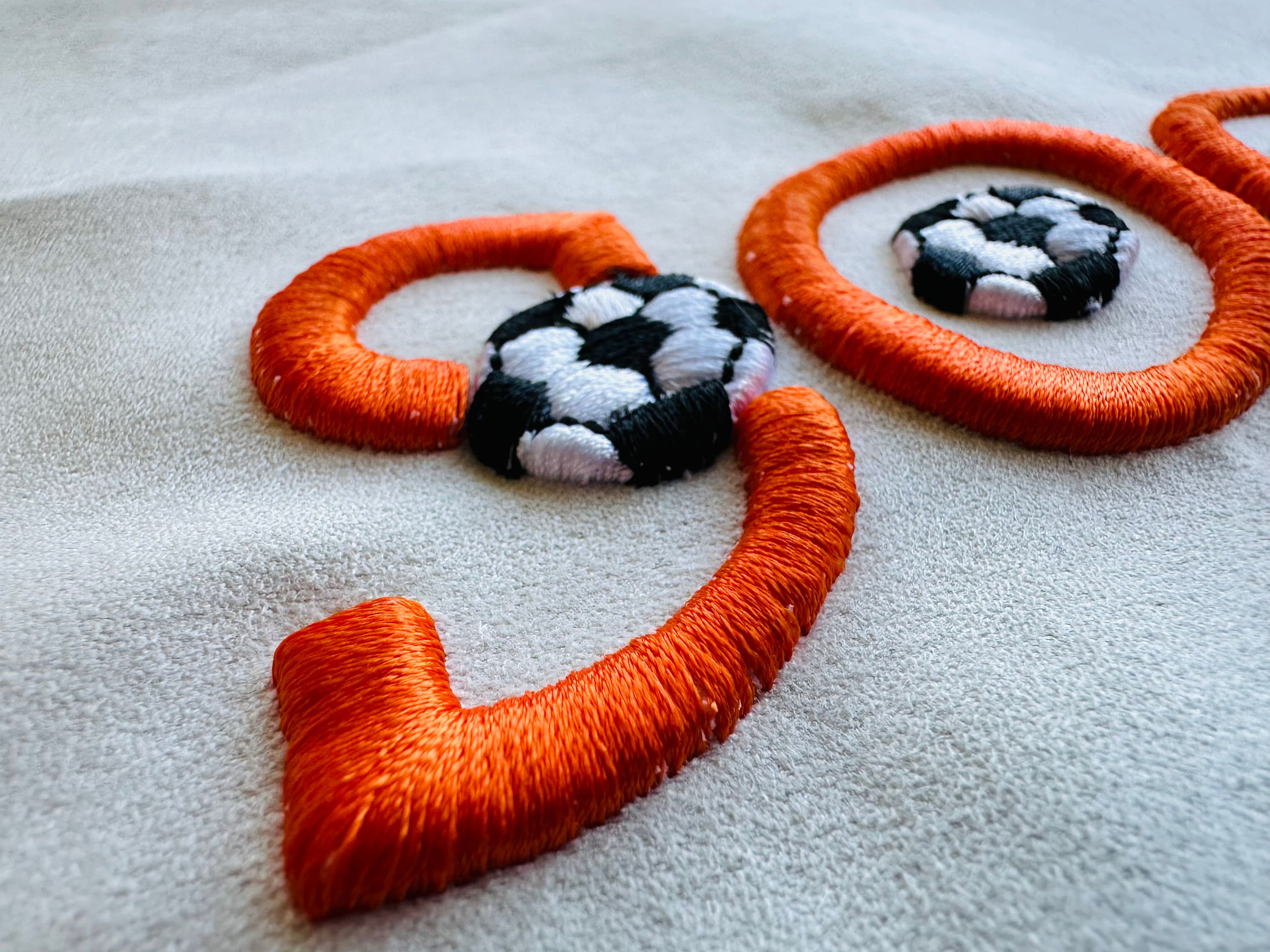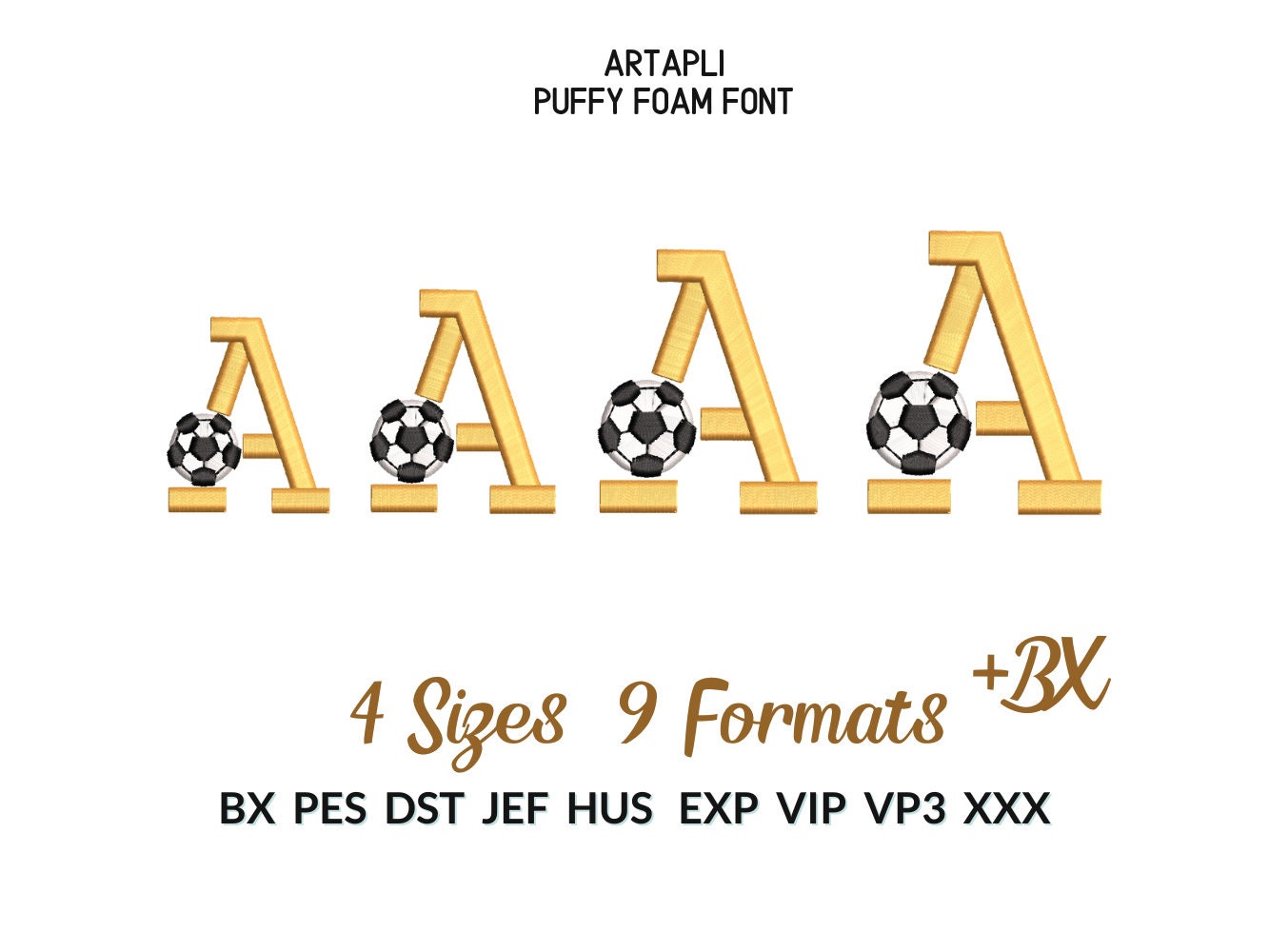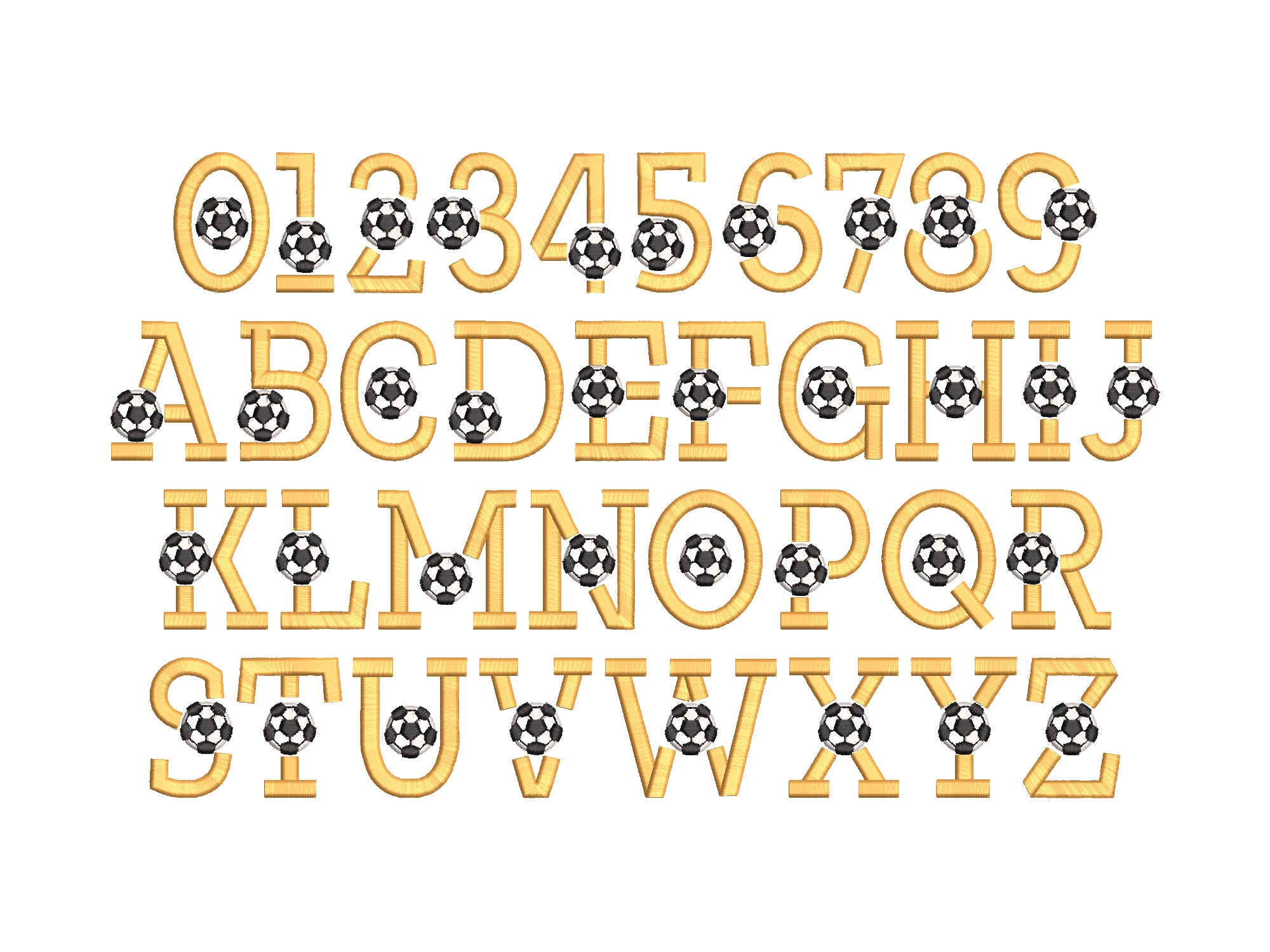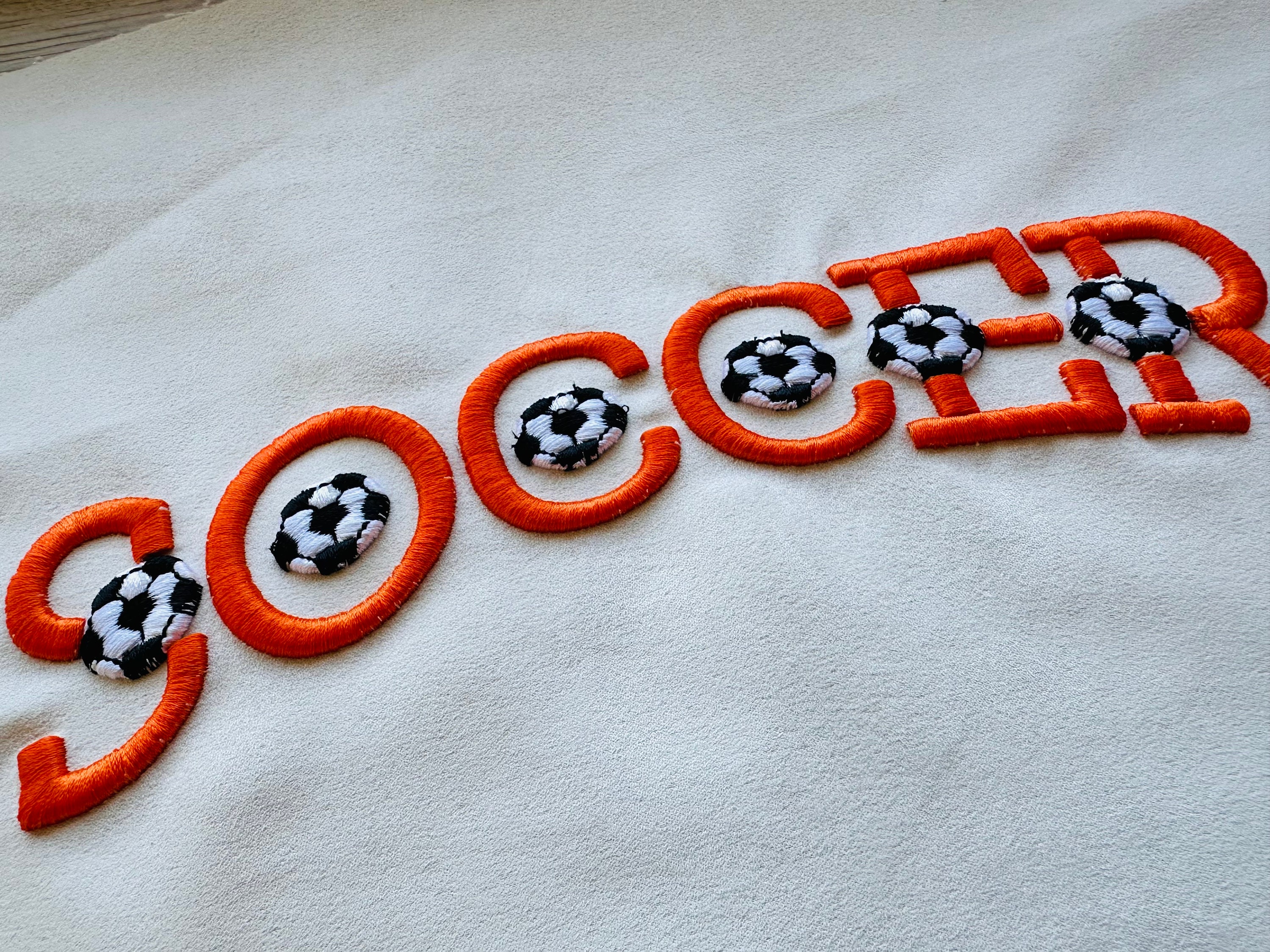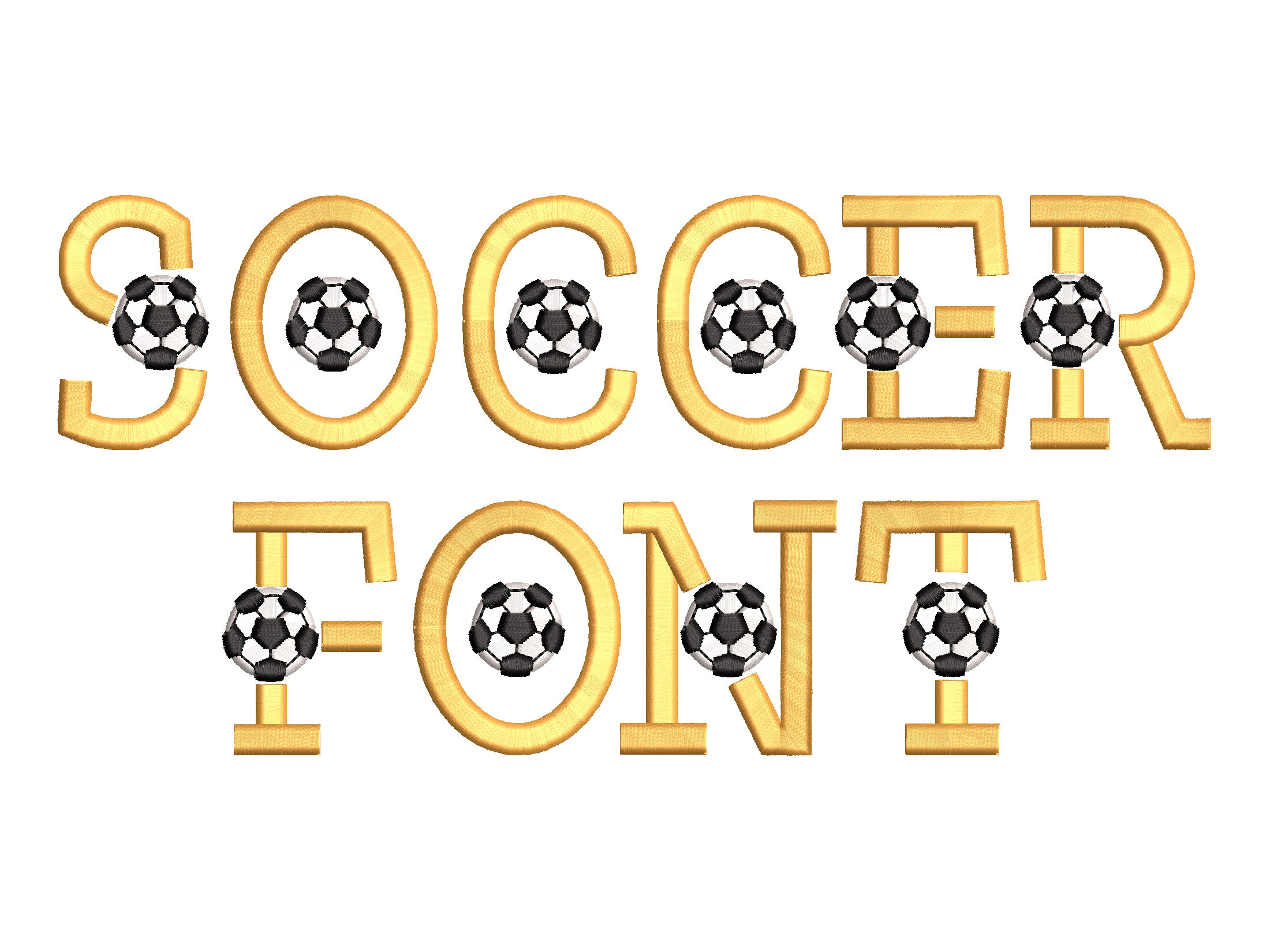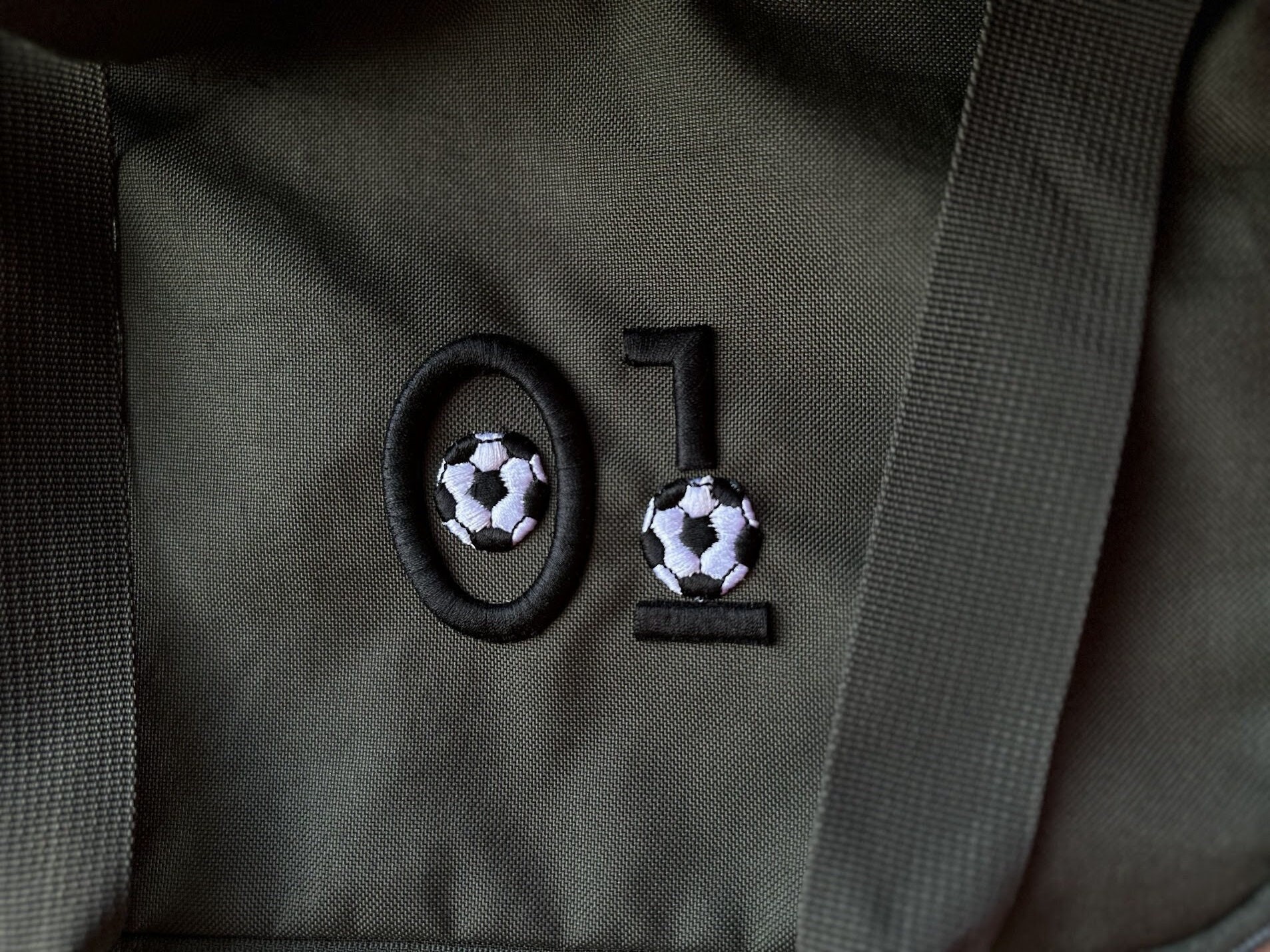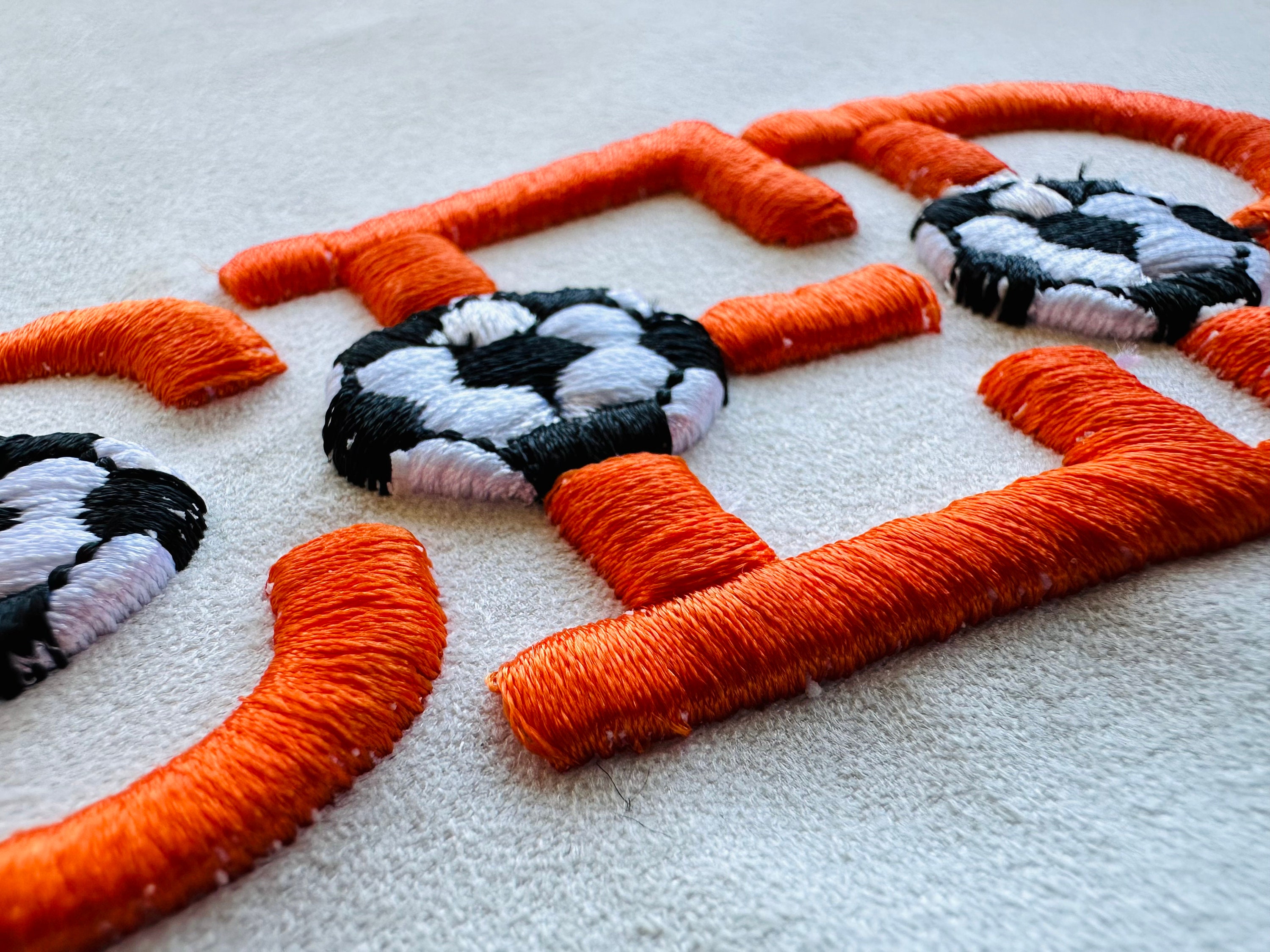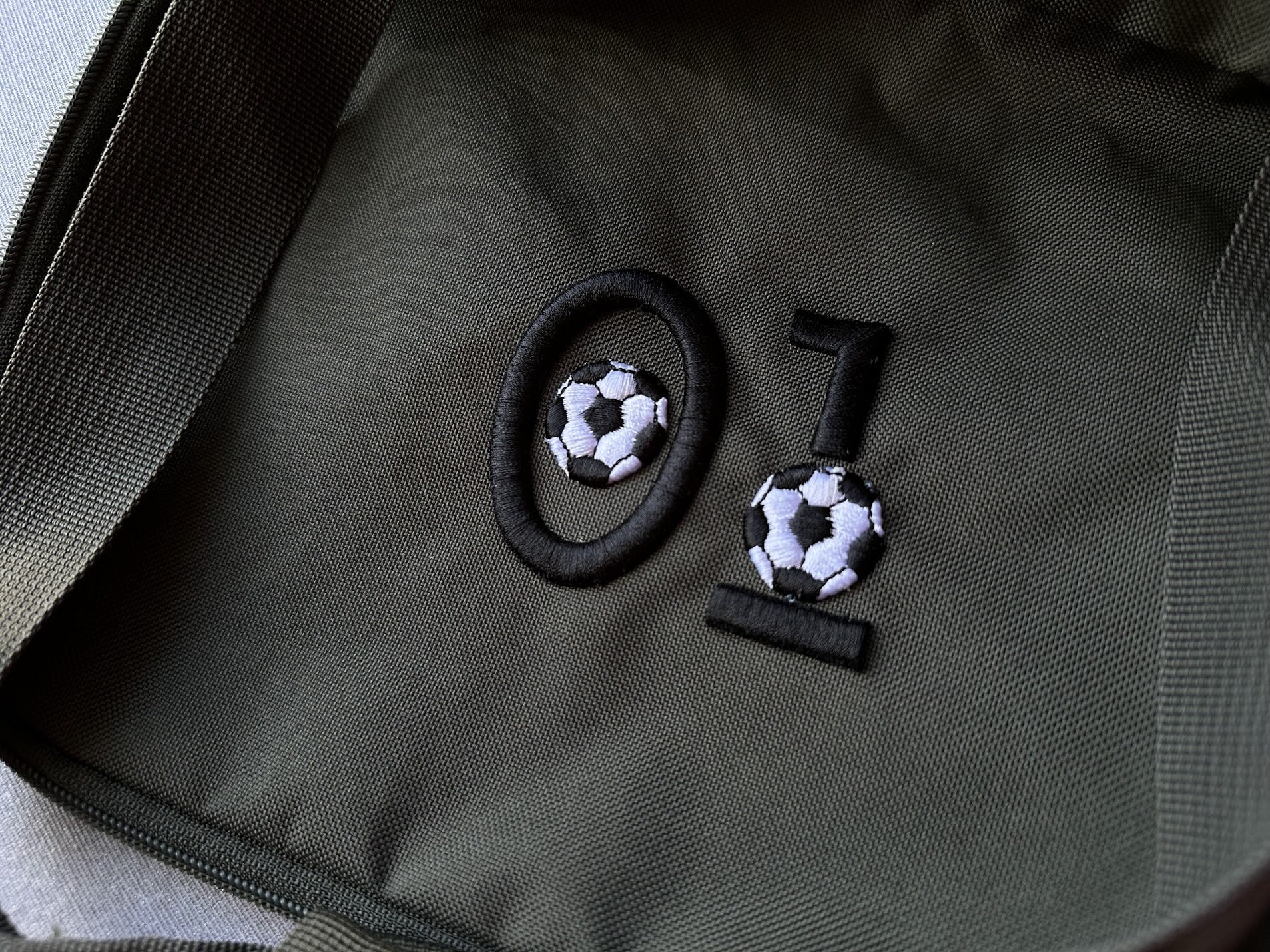
Satin stitch Soccer Font puffy foam embroidery fonts Sport alphabet letters machine embroidery designs boys monogram 1.9 up to 2.8 inch, BX
Uppercase letters and numbers.